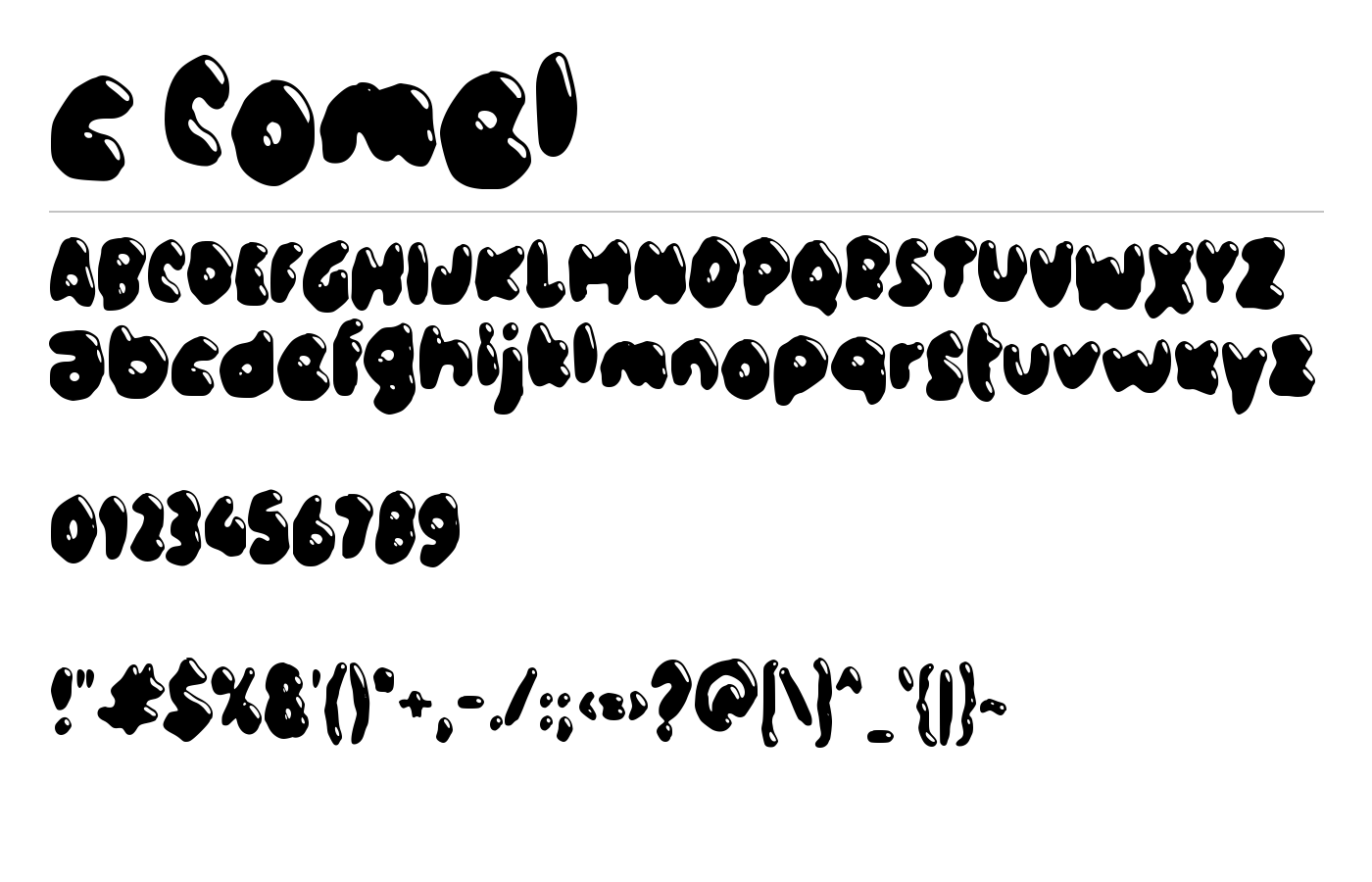
c Comel is a bold, playful display font with an organic, blob-like shape that gives it a quirky and friendly personality. Its rounded, irregular forms and heavy weight make it perfect for creative, informal designs such as children's books, fun branding, or eye-catching posters where a unique and approachable vibe is desired. This font works best in headlines or short texts that aim to capture attention with a lively and whimsical style.
c Comel Font